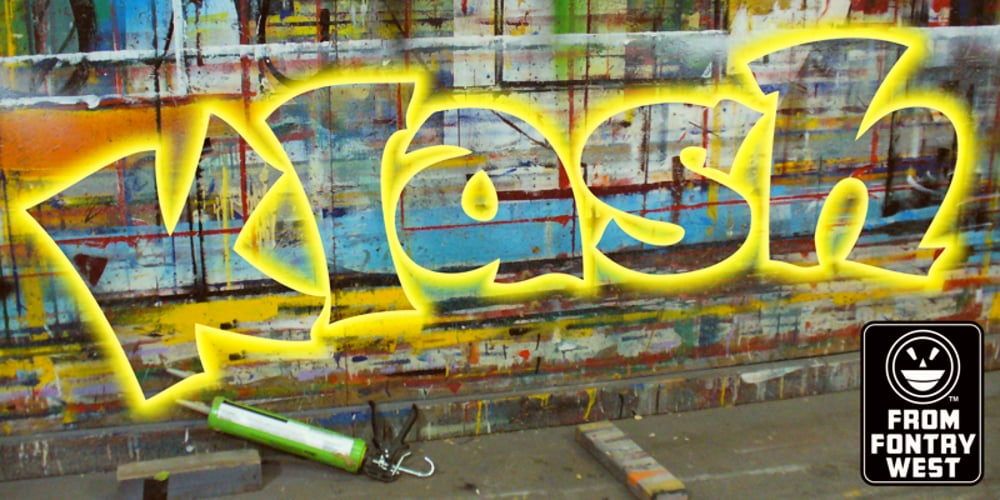
WILD2 Klash Font Family was designed by James L. Stirling and published by Fontry West. WILD2 Klash contains 4 styles and family package options. There was this “blade” font. It had no consistency of stroke, terminus, or even scale. The client wanted it, loved it, but wanted it “fixed” so that it would read. Rather than spend hours trying to fix this other font, Klash was created. Klash is loud and unruly. Calligraphic strokes and bladed serifs give it some interesting negative spaces. Break it up, rotate letters, re-assemble and it Klashes.